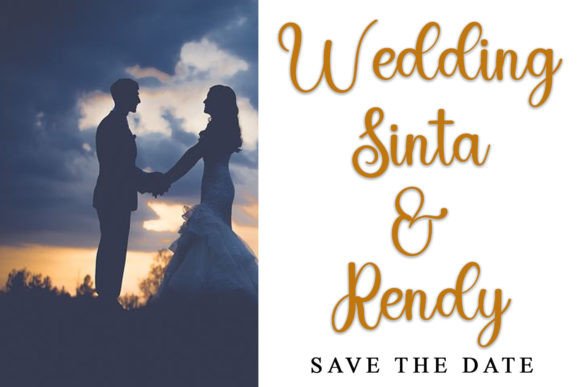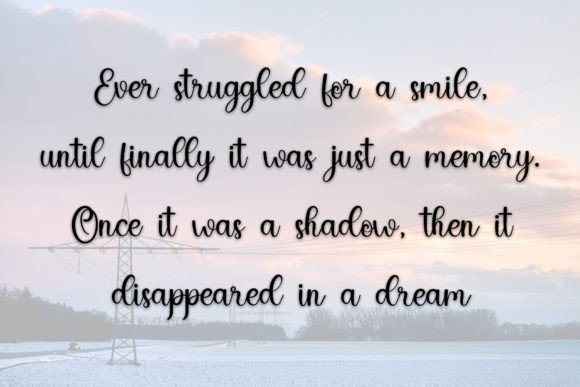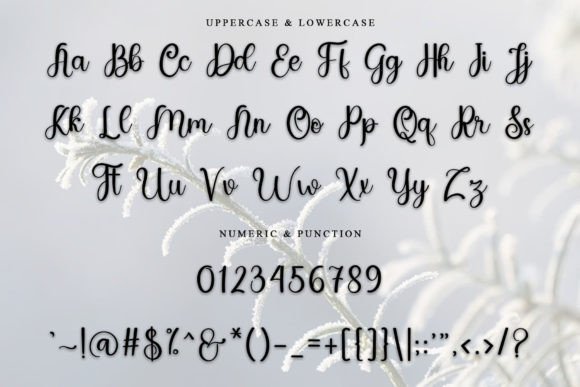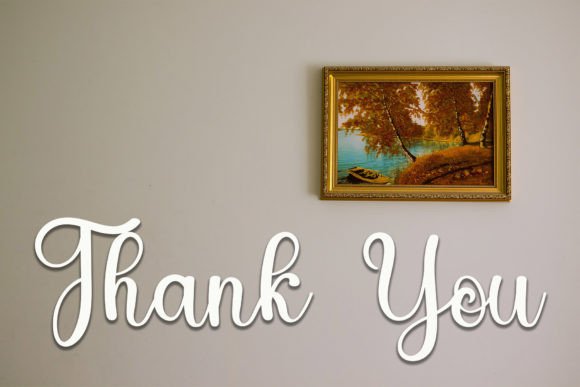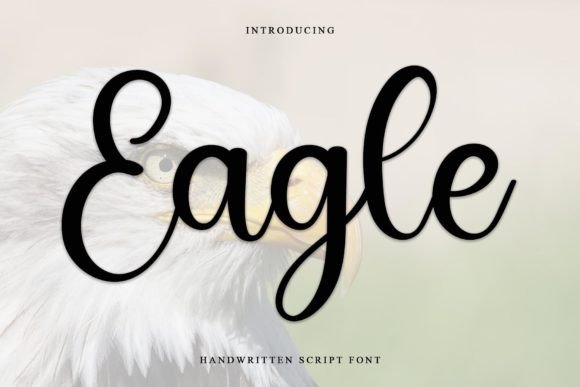
Eagle Font: Elevate Your Designs with Elegance and Timeless Style
Are you on the hunt for a font that exudes elegance, sophistication, and a touch of timeless charm? Look no further than the Eagle Font, a stunning handwritten typeface that is sure to capture your heart. With its incredibly distinct and beautiful style, Eagle Font is the perfect addition to your design arsenal, allowing you to create spectacular designs that stand out from the crowd.
The Essence of Eagle Font
Eagle Font is a neat and beautiful handwritten font, characterized by an elegant touch that sets it apart from other typefaces. Its unique blend of classic and modern elements makes it an excellent choice for designers and crafters looking to add a touch of sophistication to their projects. Whether you’re working on a logo, branding materials, or creative crafts, Eagle Font is sure to impress.
Key Features of Eagle Font
• Elegant and Refined: Eagle Font boasts an undeniable air of elegance, making it perfect for designs that require a touch of sophistication.
• Timeless Style: Unlike trendy fonts that quickly go out of style, Eagle Font’s classic charm ensures it remains relevant for years to come.
• Distinct and Readable: The font’s unique style is both eye-catching and highly legible, making it suitable for a wide range of applications.
• Versatile: From logos and branding to creative crafts and personal projects, Eagle Font adapts seamlessly to various design needs.
Eagle Font is more than just a typeface; it’s a tool that unlocks endless creative possibilities. Designers will appreciate its versatility and the professional touch it brings to any project. Crafters, on the other hand, will love how it elevates their handmade creations, adding a level of detail and sophistication that’s hard to achieve with standard fonts.
Use Cases for Eagle Font
• Logo Design: Create memorable and impactful logos that stand out.
• Branding Materials: Ensure consistency and elegance across all your branding elements.
• Stationery: Add a touch of class to your letters, invitations, and cards.
• Web Design: Enhance your website’s aesthetic with a font that’s both beautiful and readable.
• Creative Crafts: From scrapbooking to DIY projects, Eagle Font can add a personal and sophisticated touch.